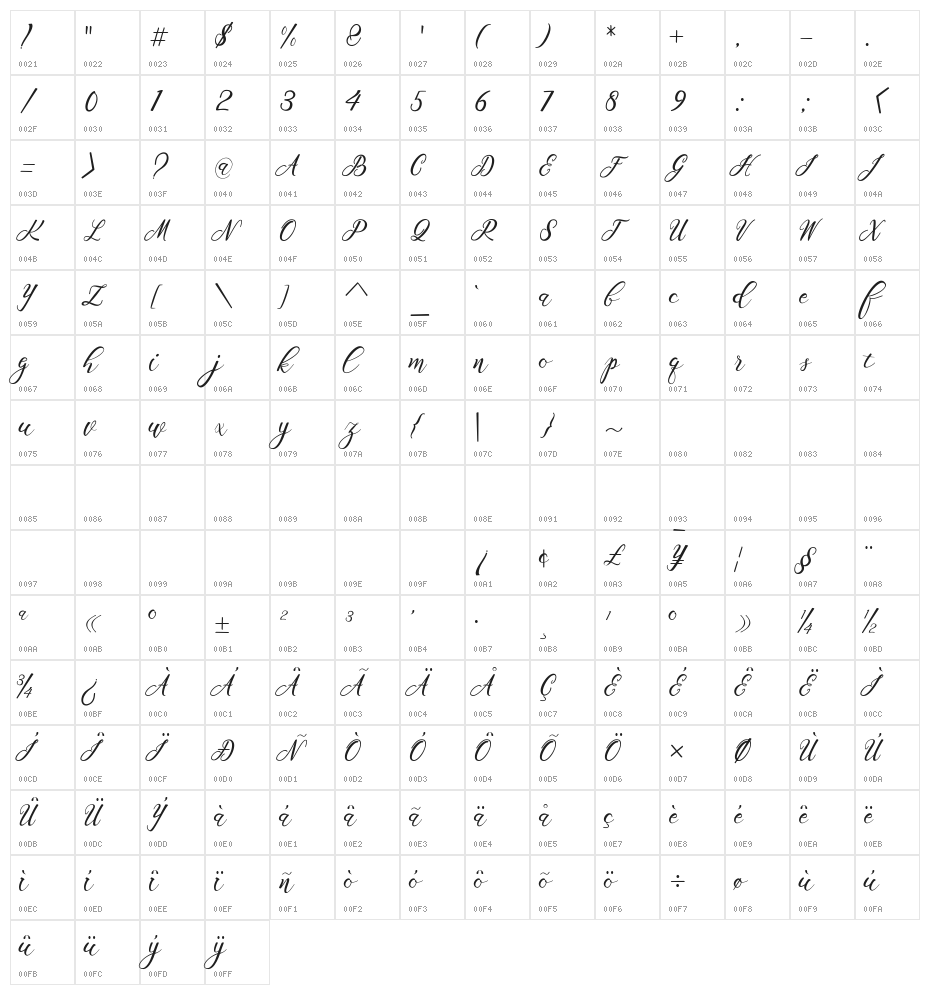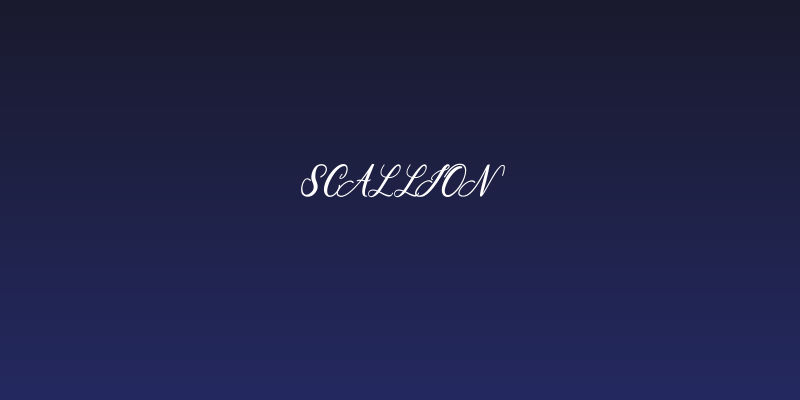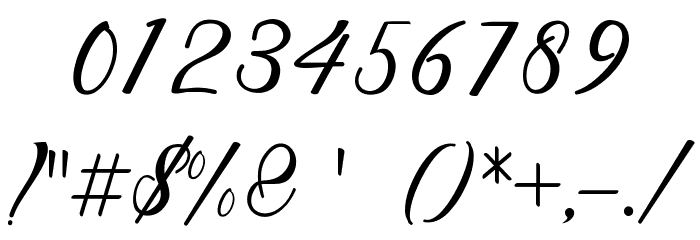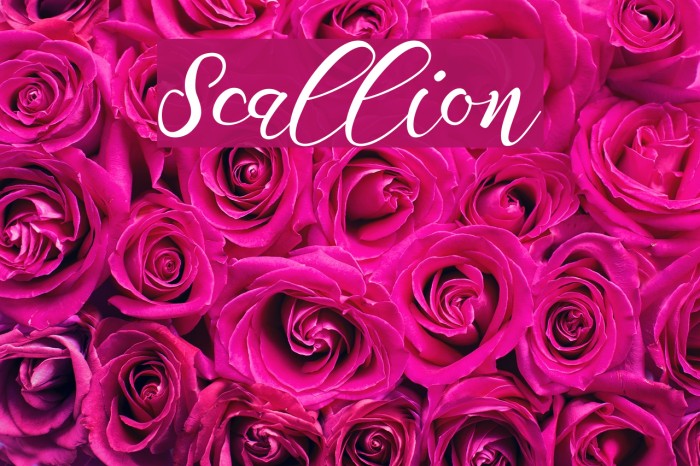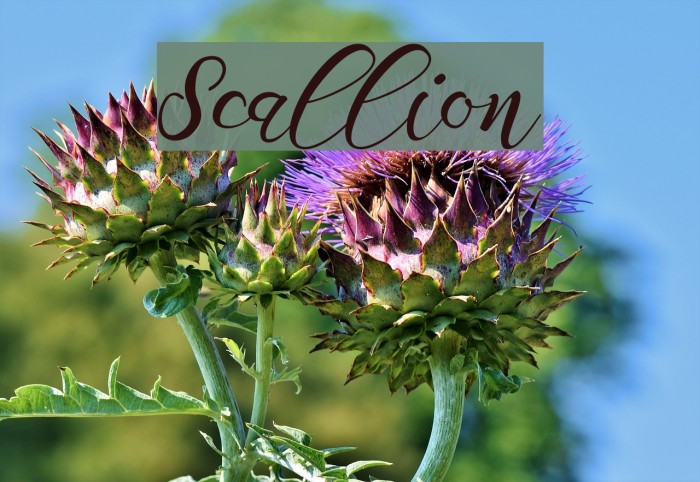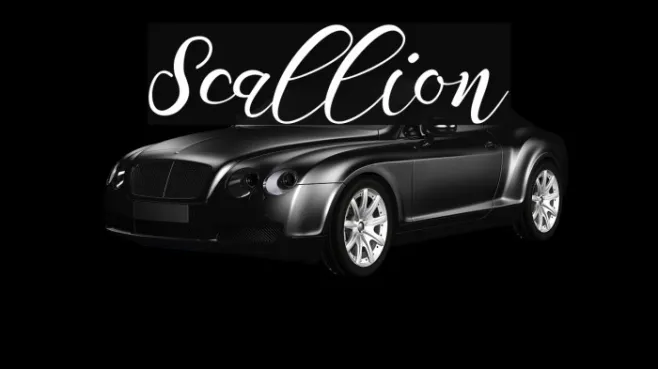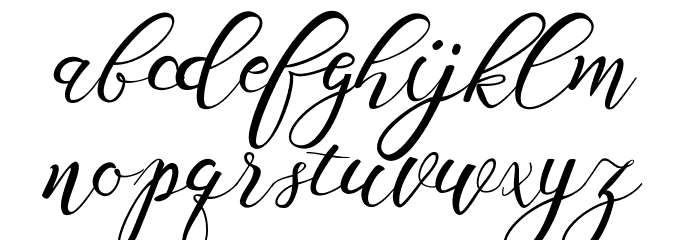
Scallion Font
Scallion Description
This elegant script font features flowing, cursive letters with a sophisticated and graceful appearance. The uppercase letters are tall and slightly slanted, with intricate loops and flourishes that add a touch of elegance. The lowercase letters maintain a consistent style, with smooth curves and connected strokes that create a seamless flow. The numerals are designed to match the cursive style, with a slight slant and rounded edges. Special characters are included, maintaining the same decorative flair. This font exudes a sense of refinement and is perfect for projects that require a touch of class and elegance.